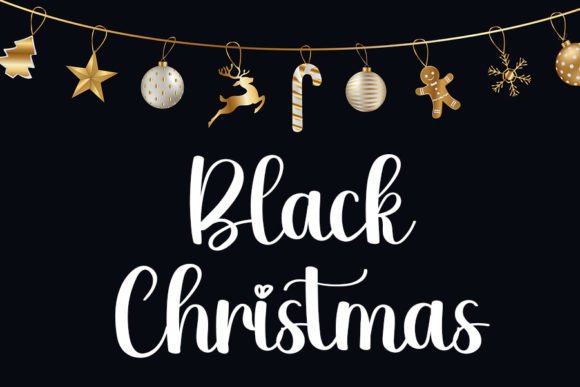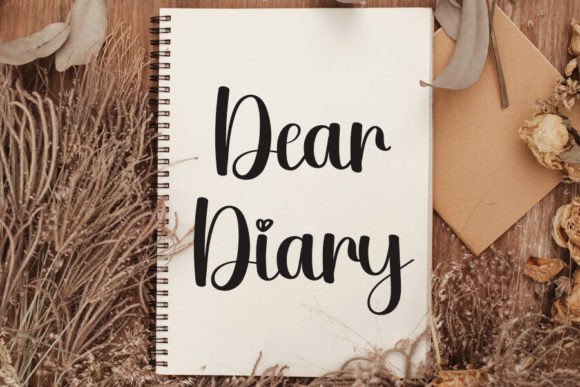
Introducing Christmas Sunshine Font: The Perfect Addition to Your Design Collection
Are you looking for a font that embodies the elegance and charm of the holiday season? Look no further than the Christmas Sunshine Font! This beautiful, flowing handwritten font is sure to capture the hearts of designers and crafters alike with its incredibly distinct and timeless style.
A Font that Shines with Elegance
Christmas Sunshine Font is described by its elegant touch, making it perfect for a variety of projects, from holiday cards and invitations to branding and packaging. The font’s flowing script and delicate lines evoke a sense of sophistication and refinement, adding a touch of luxury to any design.
What Makes Christmas Sunshine Font So Special?
So, what sets Christmas Sunshine Font apart from other fonts? Here are just a few features that make it a standout:
- Unique and Timeless Style: Christmas Sunshine Font has an incredibly distinct style that is both vintage and modern. Its elegant touch and flowing script make it perfect for creating spectacular designs that will stand the test of time.
- Handwritten with Love: This font is carefully crafted with a handwritten touch, giving it a personal and authentic feel. It’s perfect for adding a touch of warmth and personality to your designs.
- Versatile and Adaptable: Christmas Sunshine Font is incredibly versatile and can be used for a wide range of projects, from digital designs to print materials.
How to Use Christmas Sunshine Font in Your Designs
Christmas Sunshine Font is perfect for a variety of design projects, including:
- Holiday Cards and Invitations: Add a touch of elegance and sophistication to your holiday cards and invitations with Christmas Sunshine Font.
- Branding and Packaging: Use Christmas Sunshine Font to create luxurious and eye-catching branding and packaging for your business or product.
- Digital Designs: Add a touch of elegance and refinement to your digital designs, including social media graphics, blog posts, and website headers.
- Crafting and Scrapbooking: Christmas Sunshine Font is perfect for crafters and scrapbookers looking to add a touch of personality and elegance to their projects.
Tips and Tricks for Getting the Most Out of Christmas Sunshine Font
Here are a few tips and tricks for getting the most out of Christmas Sunshine Font:
- Experiment with Different Sizes and Colors: Christmas Sunshine Font looks great in a variety of sizes and colors. Experiment with different combinations to find the one that works best for your design.
- Pair it with Other Fonts: Christmas Sunshine Font pairs well with a variety of other fonts. Try pairing it with a bold font for a striking contrast.
- Use it to Create a Sense of Hierarchy: Use Christmas Sunshine Font to create a sense of hierarchy in your design. Use it for headings and titles to draw attention to important information.
Christmas Sunshine Font is a beautiful and elegant addition to any design collection. Its unique and timeless style, combined with its versatility and adaptability, make it perfect for a wide range of projects. Whether you’re a designer, crafter, or simply someone who loves the holiday season, Christmas Sunshine Font is sure to capture your heart and inspire your creativity.